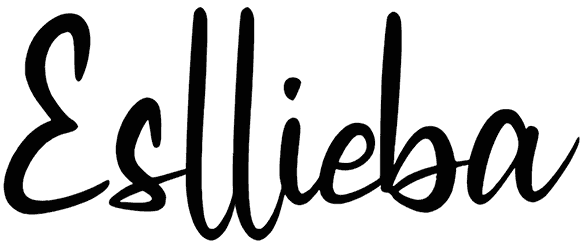
Esllieba Font
Set your gift cards, invitations, billboards, stickers, or illustrations with high regard with the help of a lovely wedding font the same as Esllieba. This curvy handwritten font comes with crooked letters and has the true potential to evoke a sense of dynamic, personalization, delicacy, and tenderness in the audience’s minds.